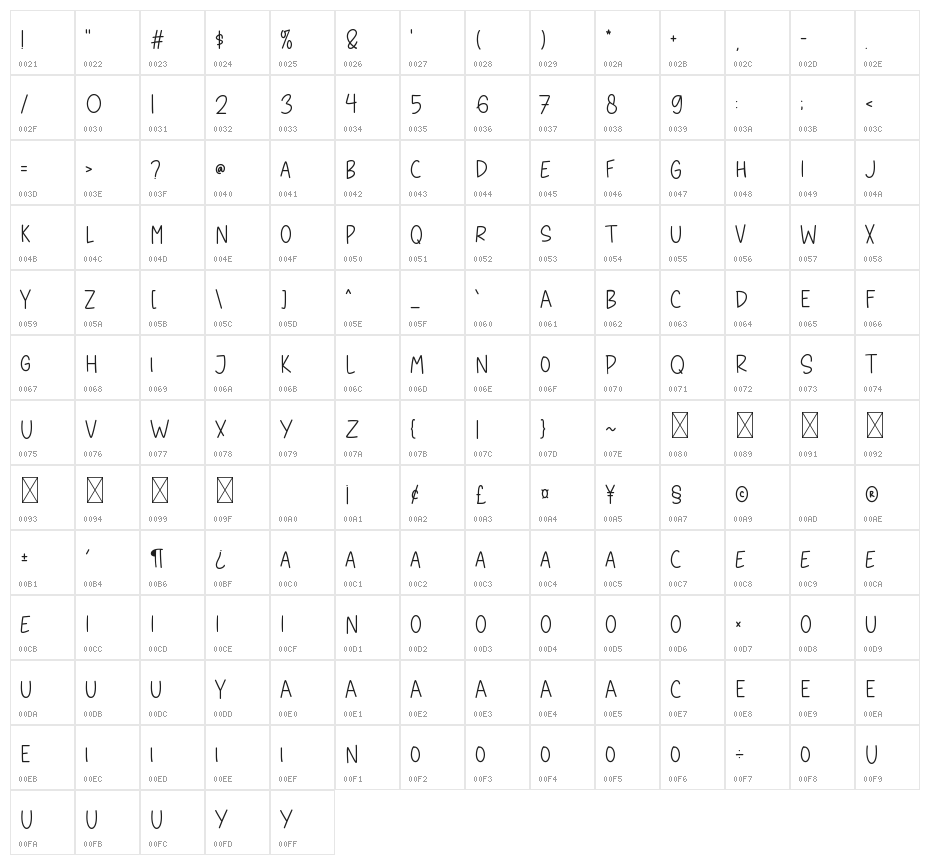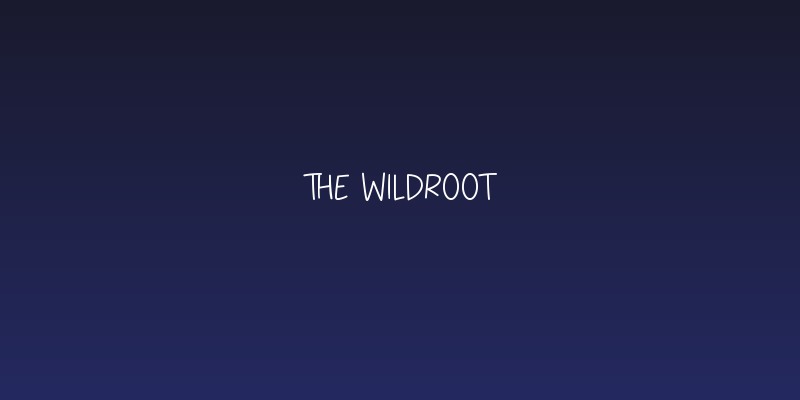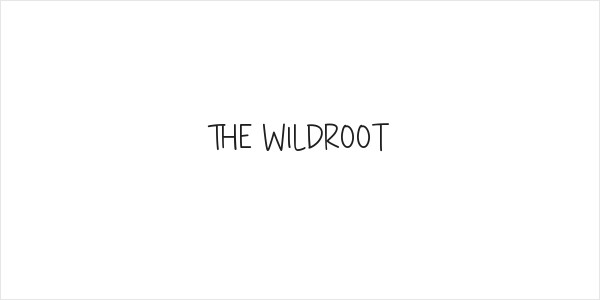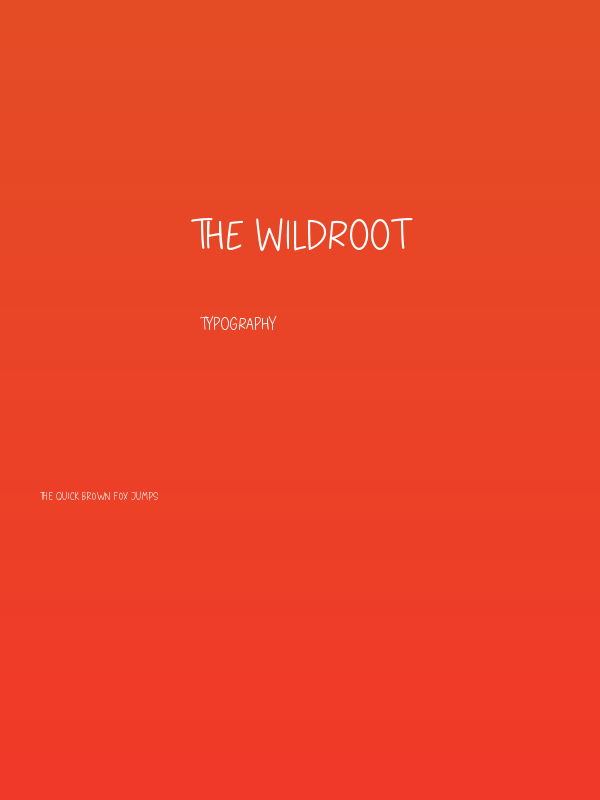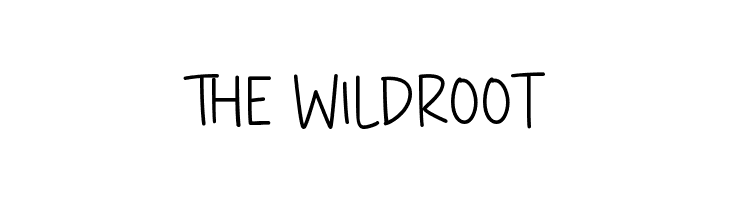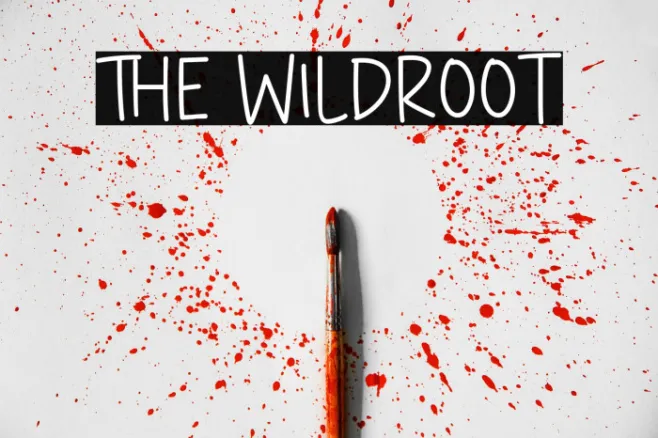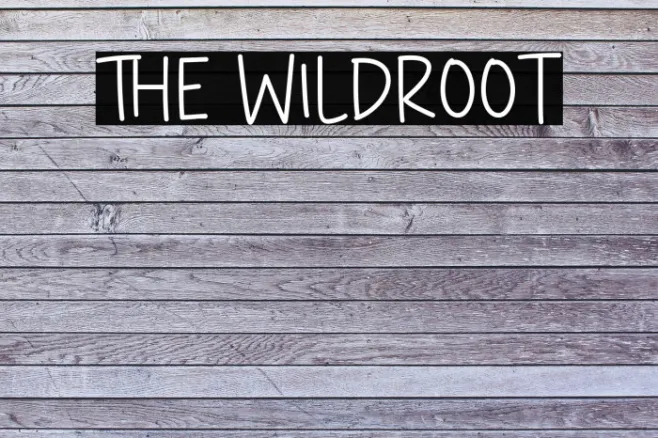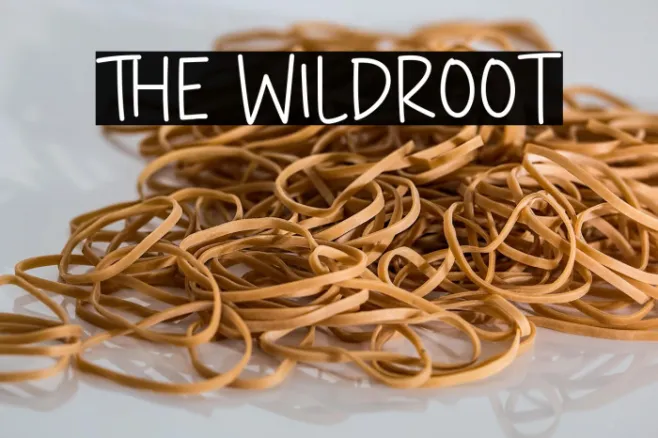
The Wildroot Font
The Wildroot Description
A playful, handwritten font with a casual and friendly appearance. The characters are slightly irregular, giving it a personal touch.
| Overall Style | Casual, Friendly |
| Use Case | Headlines, Informal text, Personal projects |
| Proposed Projects | Greeting cards, children's books, informal invitations. |